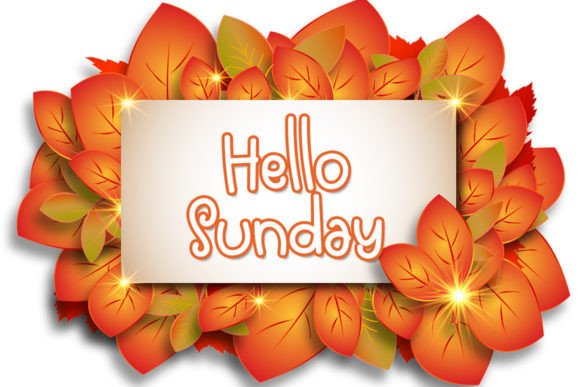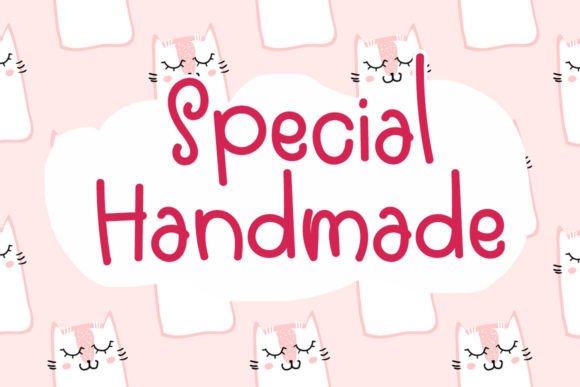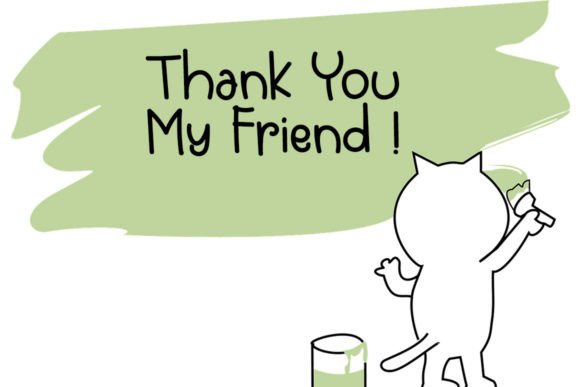
Introduction to Queen Generation Font Font
Fonts play a crucial role in design, and the Queen Generation Font font is a typeface that brings both character and versatility to any project. Whether you’re working on a branding project, a website, or a print design, the Queen Generation Font font offers a unique style that can elevate your work.
Queen Generation is a funny and versatile handwritten font.
This lovely typeface is perfect for wedding invitations, branding projects, social media posts, fashion, t-shirt designs, and more .
Key Features of Queen Generation Font Font
The Queen Generation Font font is more than just a typeface – it’s a design tool that helps you communicate your message with style and clarity. Its unique character set and versatile design make it suitable for a wide range of applications, from elegant invitations to bold headlines.
With its carefully crafted letterforms and balanced proportions, the Queen Generation Font font ensures readability and visual appeal across all mediums.
What makes Queen Generation Font font special?
The Queen Generation Font font stands out with its unique design, exceptional readability, and versatility across various design applications.